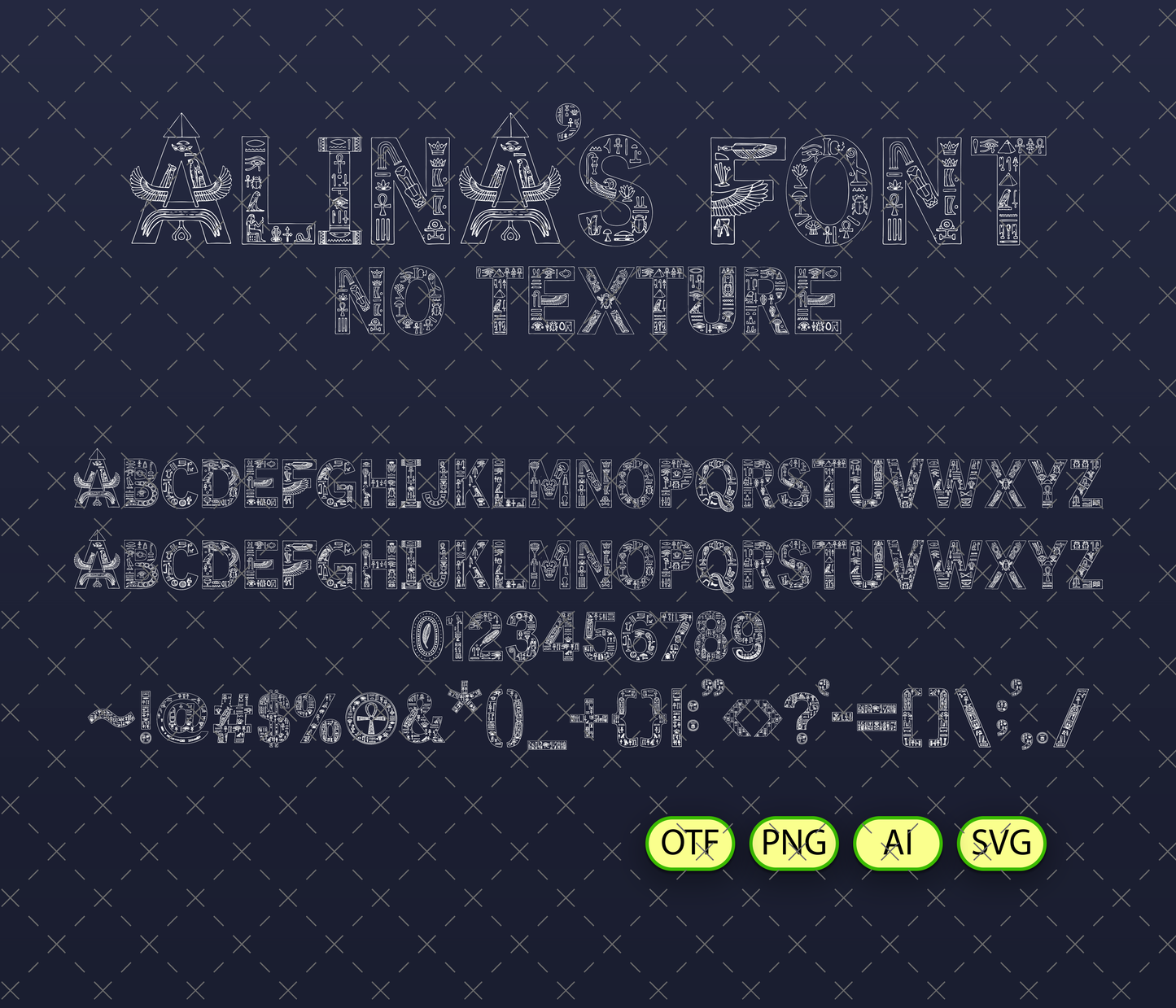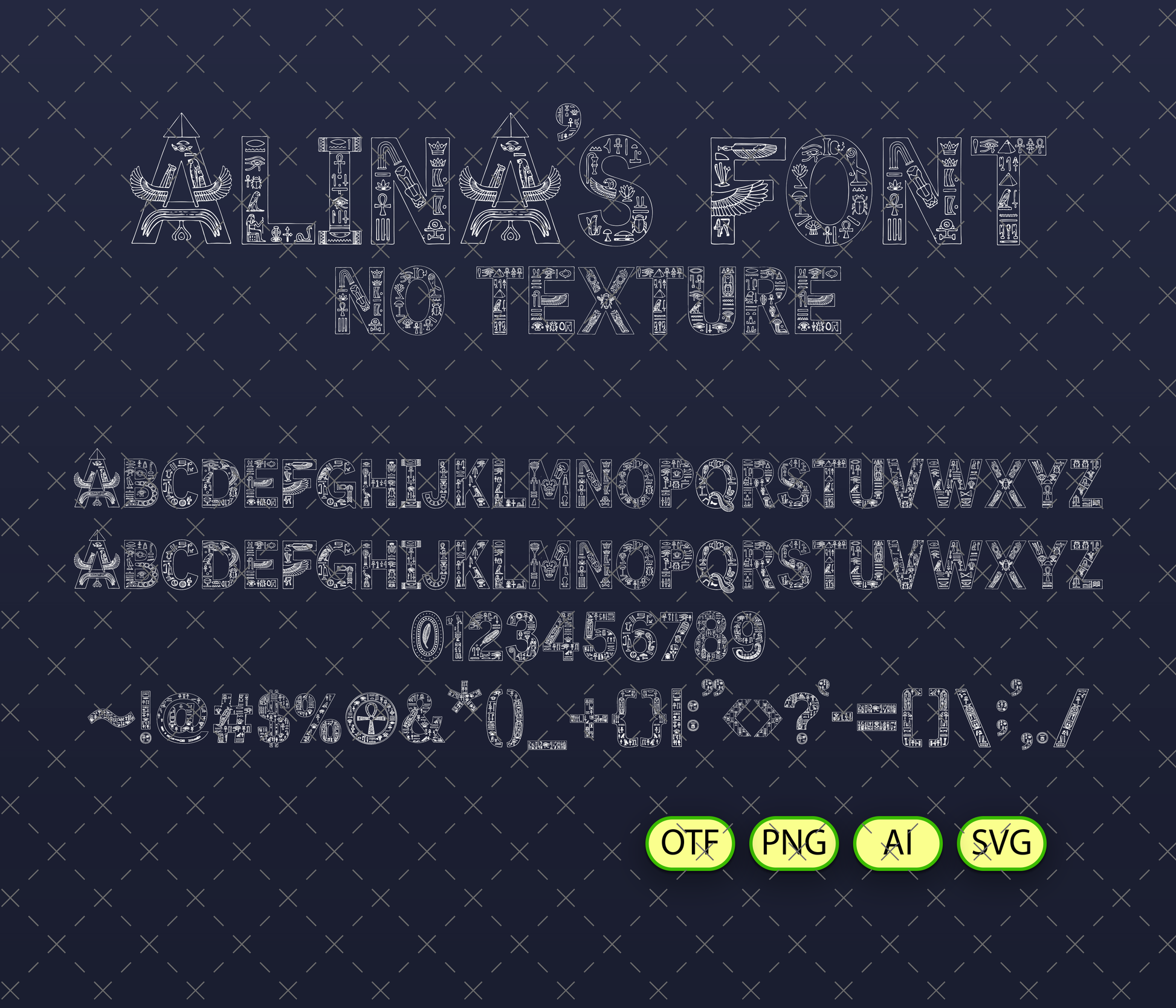
Sacred Hieroglyph Font
Uncover the majestic allure of ancient Egyptian heritage with our Sacred Hieroglyph Font No Texture, capturing the essence of pyramid-etched brilliance and golden-reign mystique. Perfect for history enthusiasts, themed event planners, content creators, and creative professionals, this font brings the bold, timeless spirit of divine ruler stories to your projects. Create eye-catching invitations, merchandise, or digital content with the dramatic energy of ancient scroll discovery narratives.
Elegant Typography for Heritage Design & Cultural Projects
Our Sacred Hieroglyph Font No Texture features sharp, beautifully crafted letterforms with smooth and adaptable outlines reflecting the world of ancient desert priests and towering obelisk settings.
- Event Promotions: Deliver spellbinding invitations, posters, and banners for cultural exhibitions, archaeology conventions, and gatherings that honor the spirit of ancient Egyptian ceremonial entertainment
- Merchandise Design: Superb for t-shirts, posters, stickers, and accessories that embody the graceful aesthetic of hieroglyphic culture themes
- Digital Media: Enrich websites, blogs, and social media with striking headers and graphics that evoke the splendor of timeless sacred kingdoms
- Creative Content: Inject genuine character into historical artwork, educational designs, and creative projects inspired by ancient papyrus scroll tales
- Personal Projects: Ignite ancient energy across scrapbooking, DIY crafts, and home decor inspired by the world of legendary Egyptian god characters
Seamless Integration and Flexible Features
Many seek an online font generator to imitate the appearance of the Sacred Hieroglyph Font. Do not be deceived! No generator can rival the flexibility of our font, which comes in a clean outline version perfect for cutting machines.
Our font honors the world of ancient civilization stories and sacred papyrus scroll discovery, empowering your projects with its bold and timeless spirit. Whether crafting educational materials, designing themed products, or adding a historical touch to personal projects, this font communicates the vibrant essence of Egyptian ceremonial grandeur. Ready to awaken ancient mystique within your creations? This font is your ideal companion for eye-catching, impactful design.